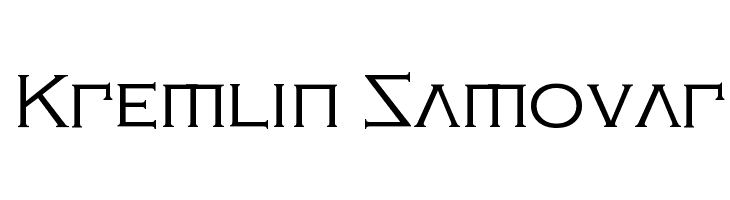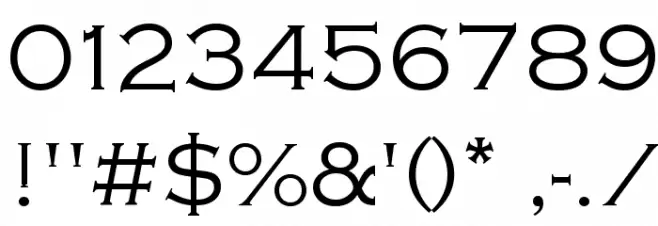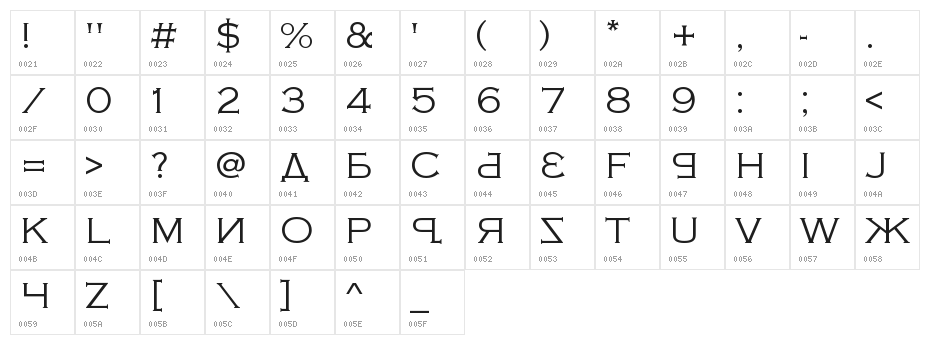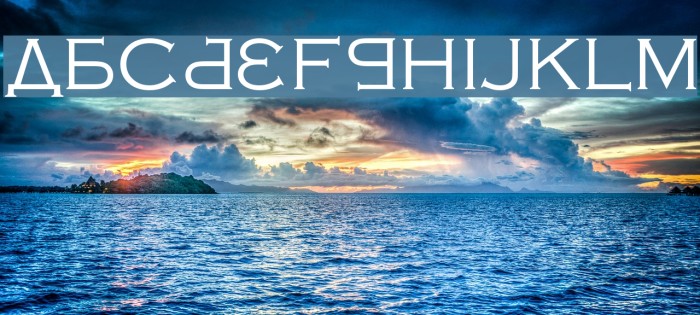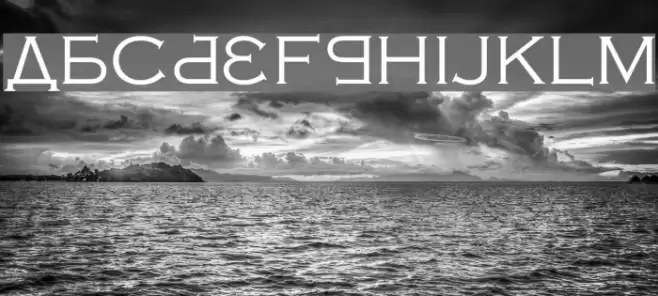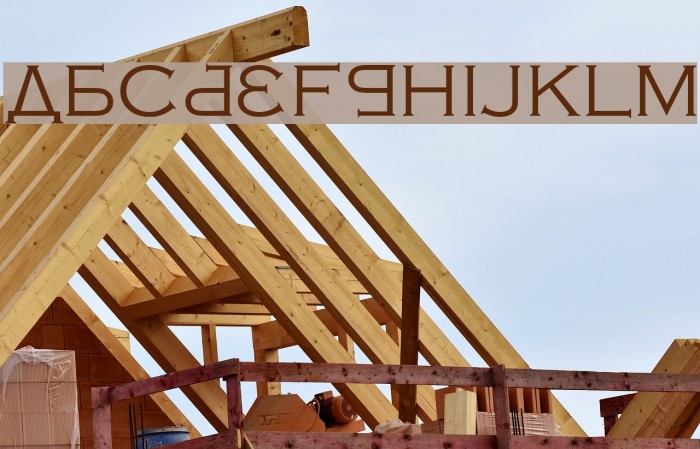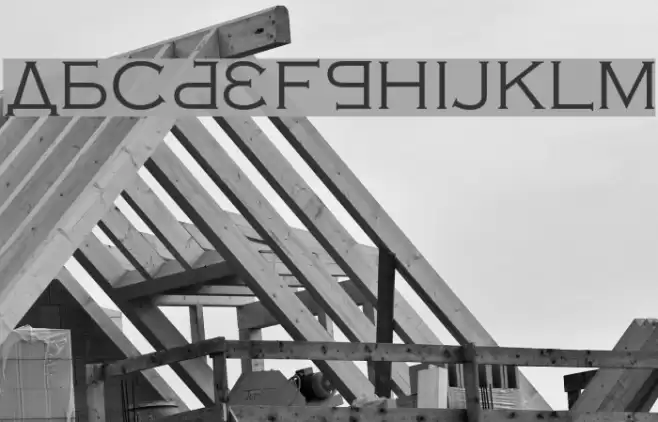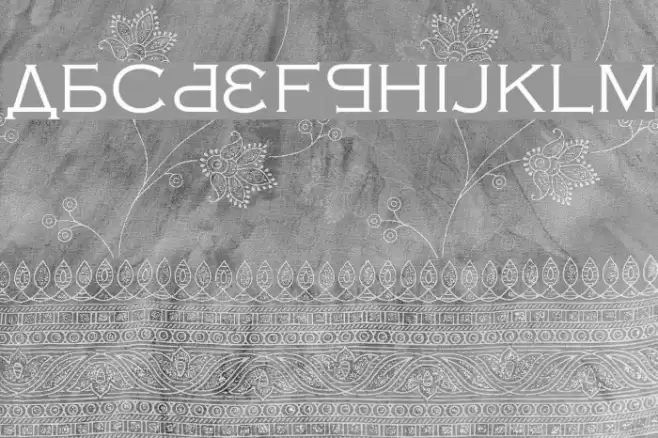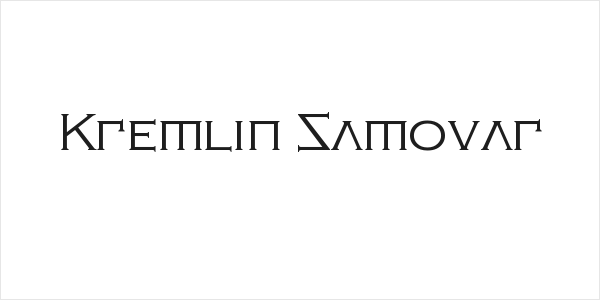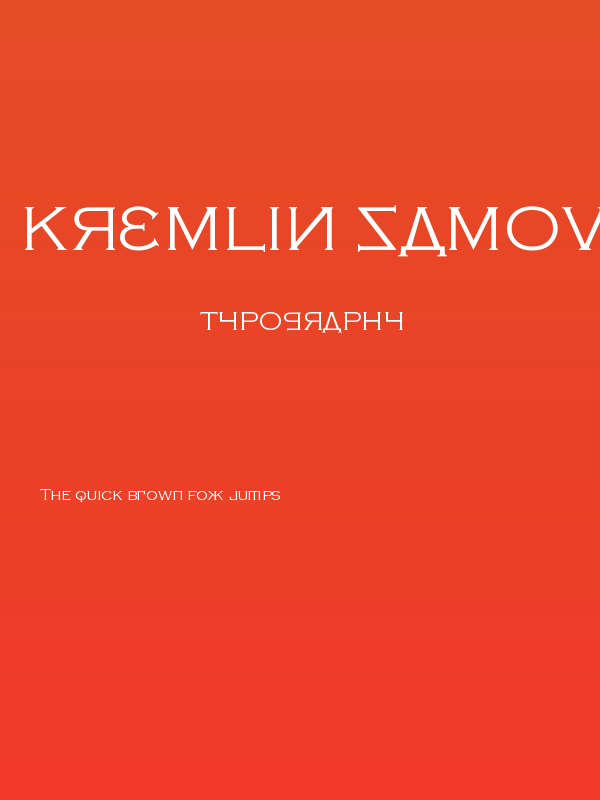
Kremlin Samovar Font
Kremlin Samovar Description
This font features a unique blend of geometric and angular elements, reminiscent of traditional Cyrillic script. The characters are bold and striking, with sharp edges and distinct lines that create a sense of strength and stability. The uppercase letters exhibit a strong architectural influence, while the lowercase letters maintain a consistent style that complements the overall design. Numbers and special characters are crafted with the same attention to detail, ensuring a cohesive look across all elements. The font's design is both modern and timeless, making it suitable for a variety of applications.
| Proposed Projects | Ideal for branding, posters, and editorial design where a strong, distinctive typeface is needed. |